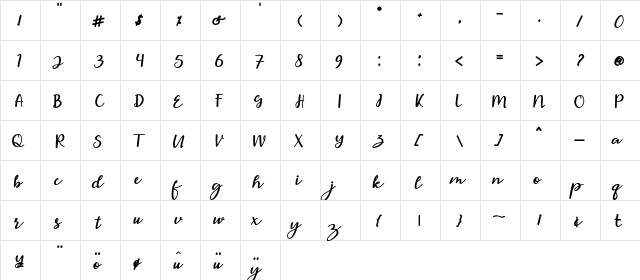
fablus Regular
| Foundry | belovestudio |
| Designer | abdul manan |
Design Context for fablus Typeface
fablus is a composed and adaptable typeface that performs quietly and consistently across a wide range of design contexts.